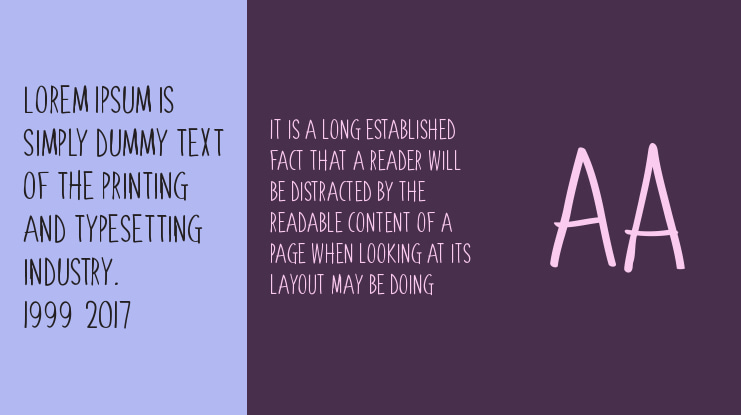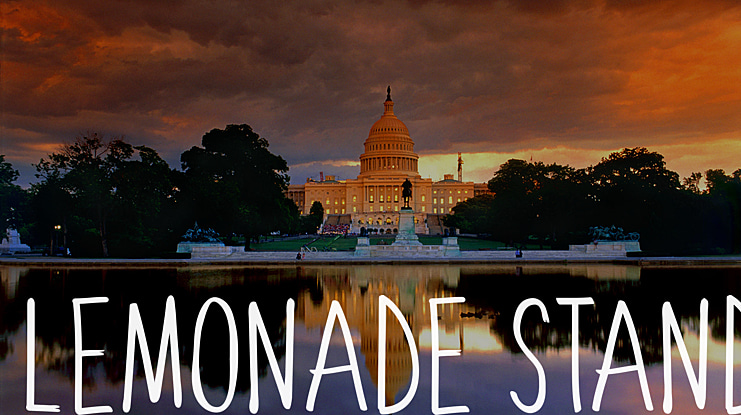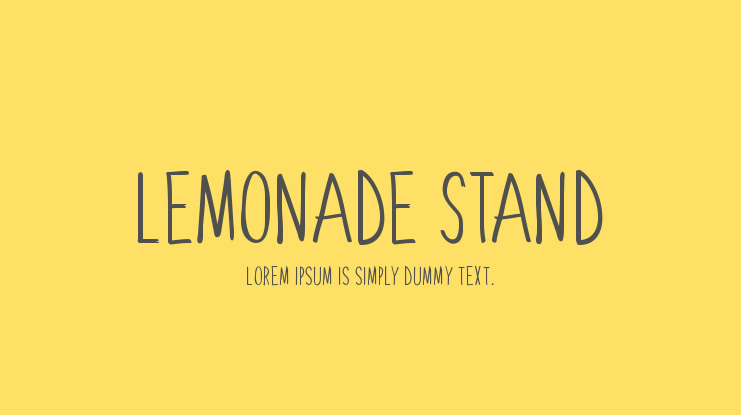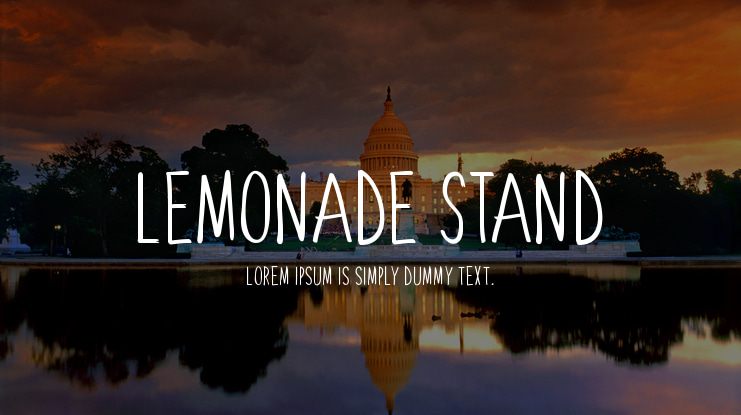
Lemonade Stand Font
Looking for the perfect all-caps display font to accentuate your next project? Lemonade Stand is a stylish yet childlike sans serif that doesnt take itself too seriously. The characters are designed with minimum contrast to roughly resemble the strokes of a thin paintbrush. Feature it in a logo, on packaging, or in a childrens book. Basic Latin, extended Latin, diacritics, Cyrillic, punctuation, and kerning are all included in the full version. The demo features basic Latin, Cyrillic, and limited punctuation.